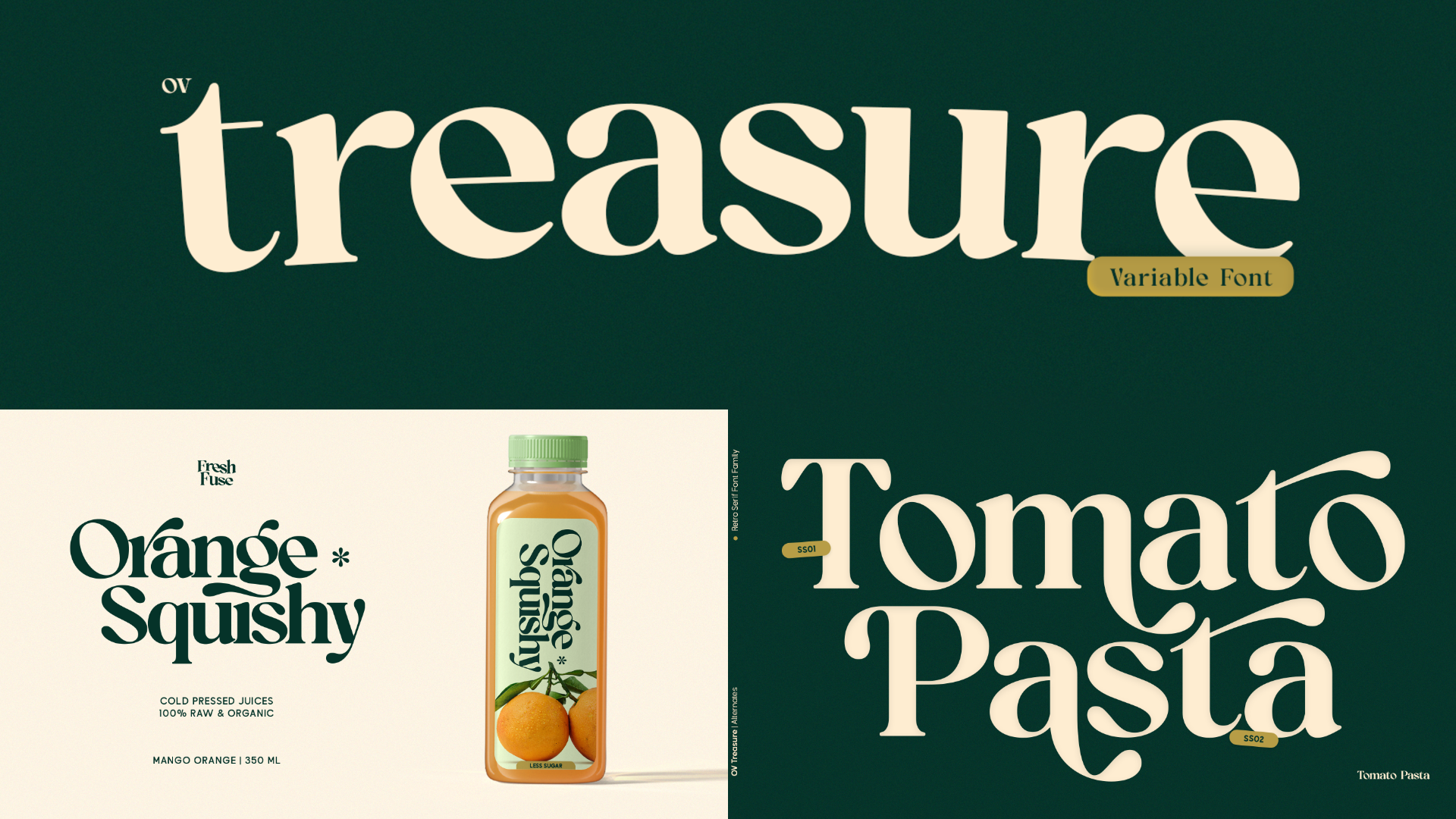
OV Treasure is a retro serif font designed to bring the aesthetics of the vintage era to life with a modern twist. Featuring bold characters, curved letterforms, and unique detailing, this font strikes the perfect balance between nostalgia and elegance. It’s perfect for various design projects, including branding, posters, packaging, magazine headlines, and retro-themed websites.
OV Treasure is the ideal choice for designers looking to create retro-inspired projects with authenticity and style, perfect for branding, editorial layouts, and attention-grabbing promotional materials.